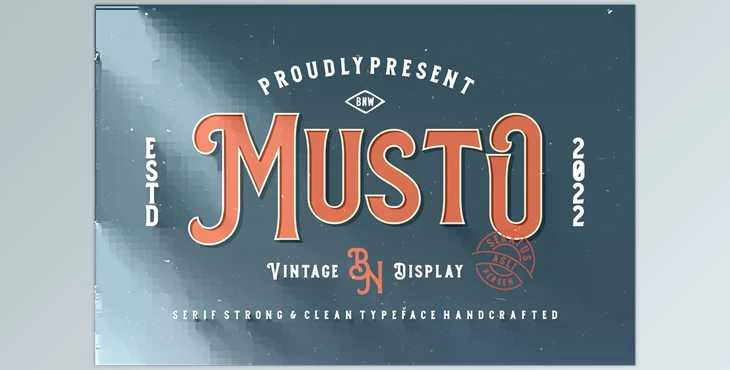
Musto – Vintage Display Font:
Musto - Vintage Display Typeface. It comes with a variety of alternative fonts designs - perfect for your brand new logo or branding projects.